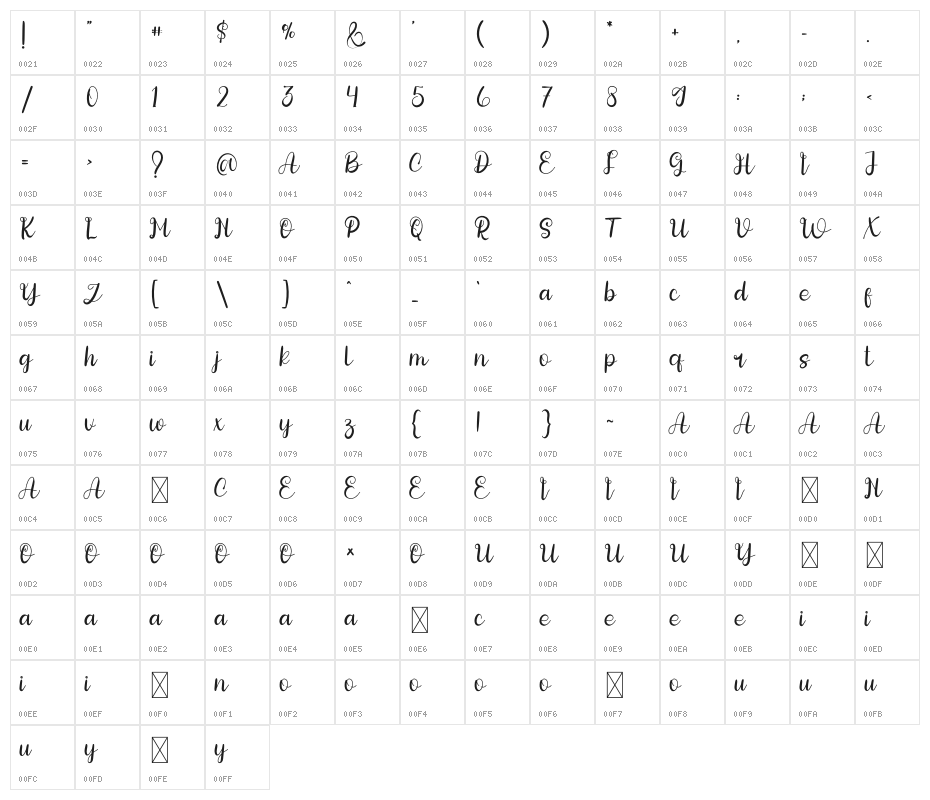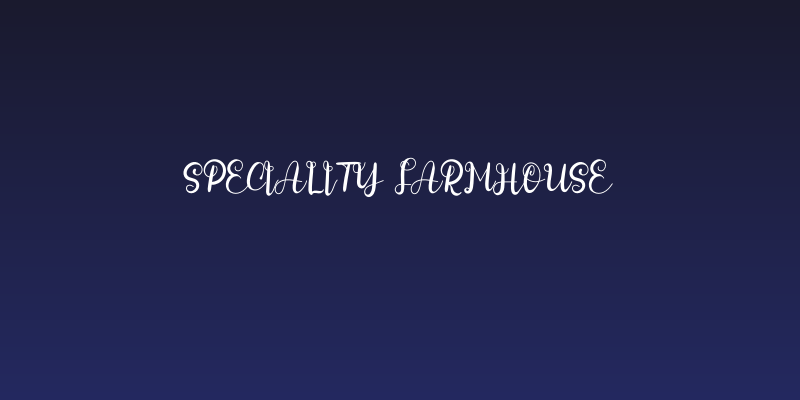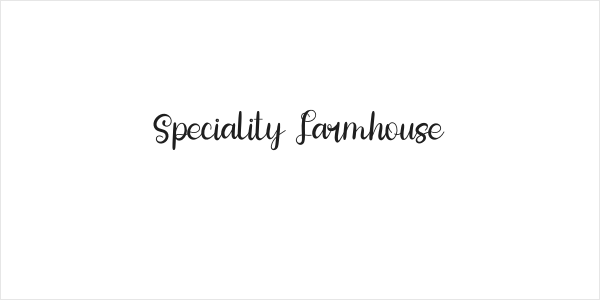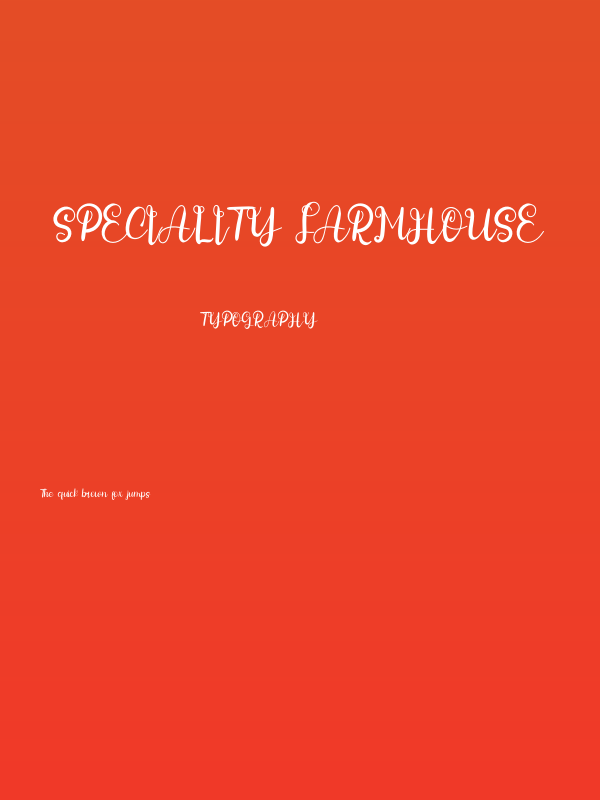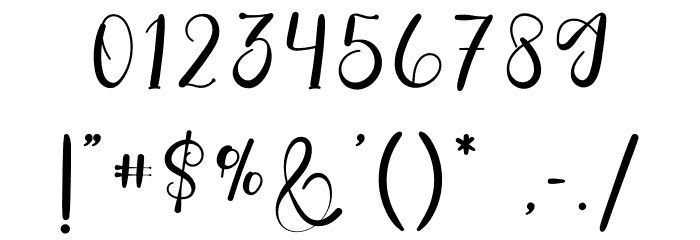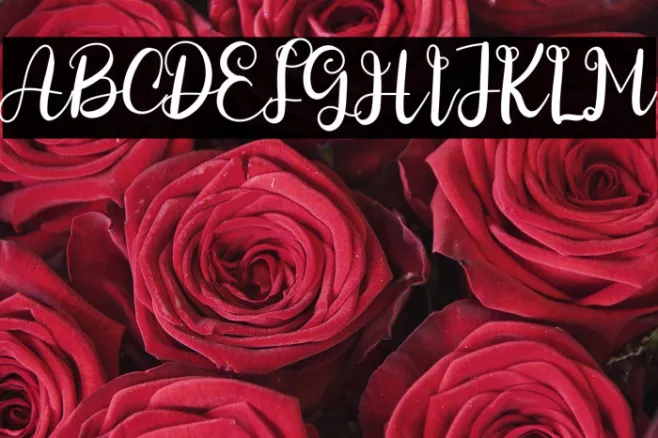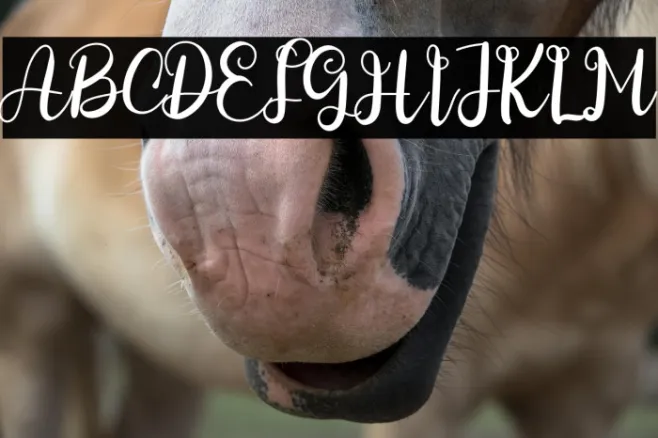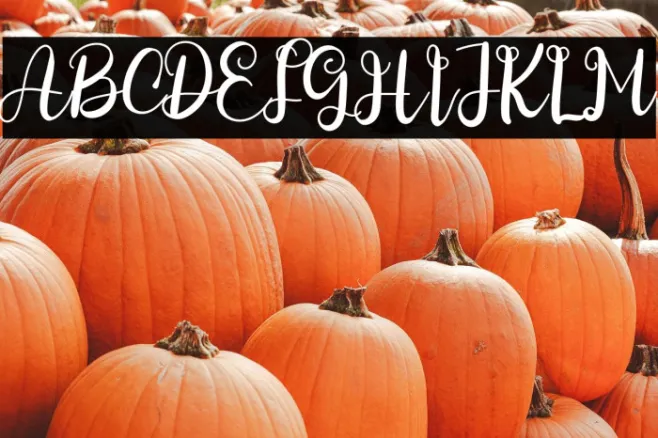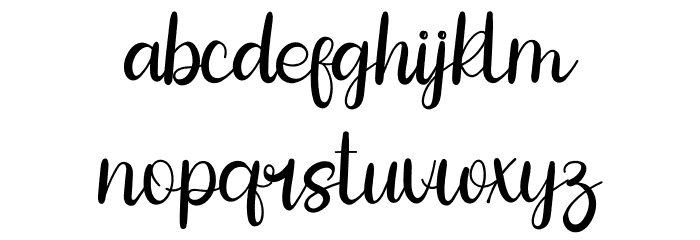
Speciality Farmhouse Font
Speciality Farmhouse Description
This font features a charming and whimsical script style, characterized by its flowing, cursive letterforms that evoke a sense of elegance and playfulness. The uppercase letters are tall and graceful, with loops and swirls that add a decorative touch. The lowercase letters maintain a consistent flow, with smooth connections between characters, enhancing readability while preserving the font's artistic flair. The numerals are designed to match the overall style, with similar curves and loops. Special characters are thoughtfully integrated, maintaining the font's cohesive aesthetic. This font is perfect for projects that require a touch of sophistication and creativity.